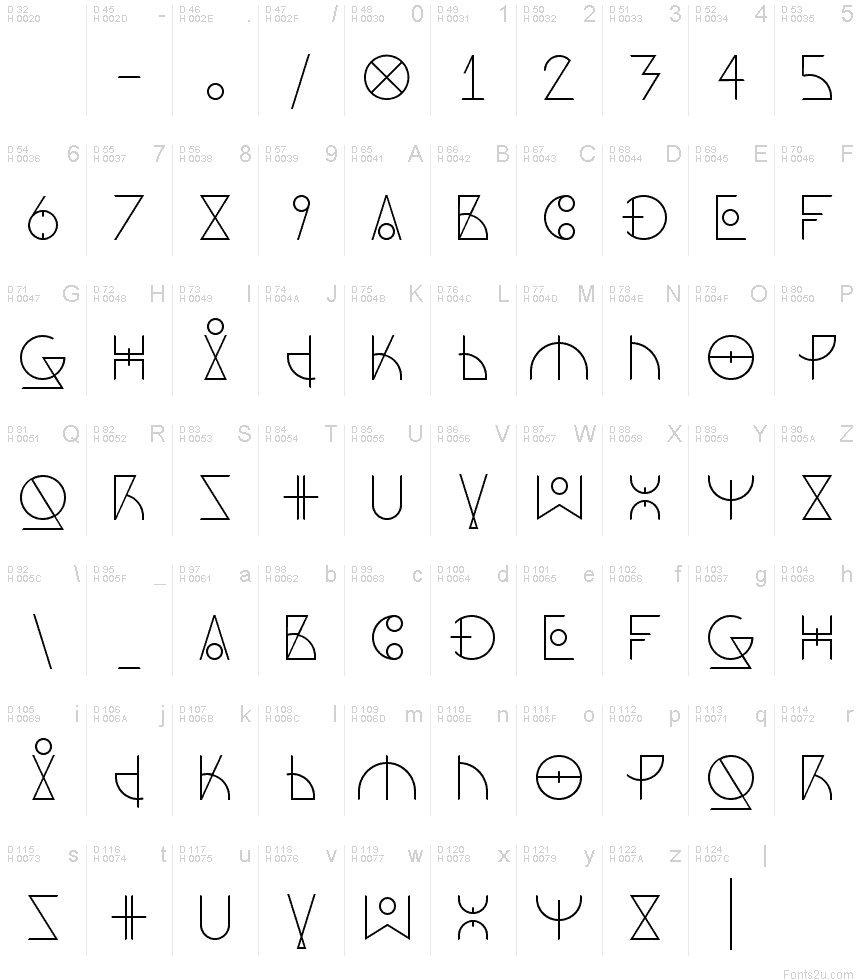
Dos Amazigh is a free futuristic decorative font with an airy monoline construction and a striking mix of circular and sharply angled forms. Tall arches, crossed strokes, open triangles, and occasional internal dots give the lettering the measured appearance of a geometric symbol system.
A technology label or experimental fashion brand could use it to build an identity that feels spare, coded, and architectural. Its unusual silhouettes also suit electronic music posters, game title screens, and exhibition graphics centered on speculative or abstract themes. Because many characters resemble diagrams and signs, the lettering can become part of an emblem, interface panel, or illustrated map rather than serving only as text.
Dos Amazigh